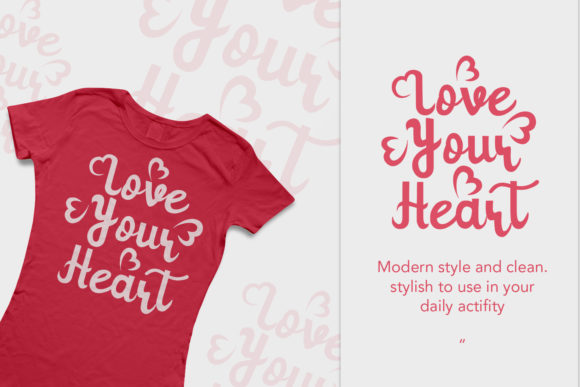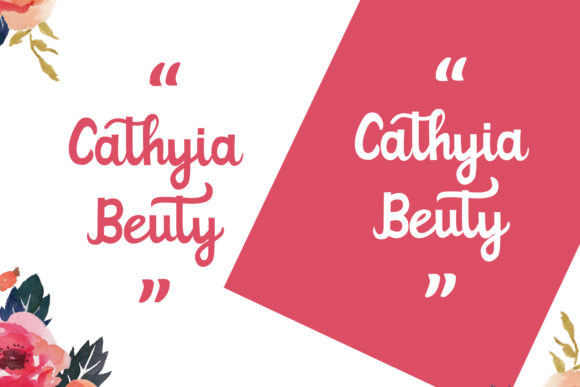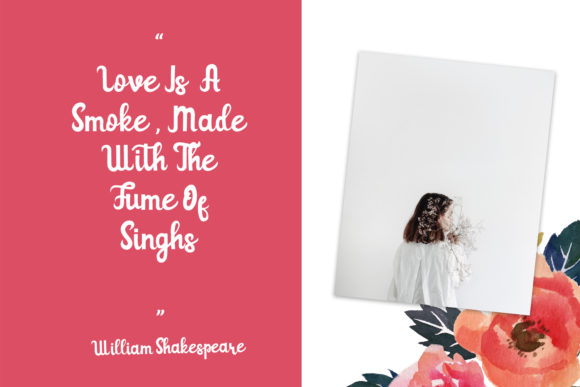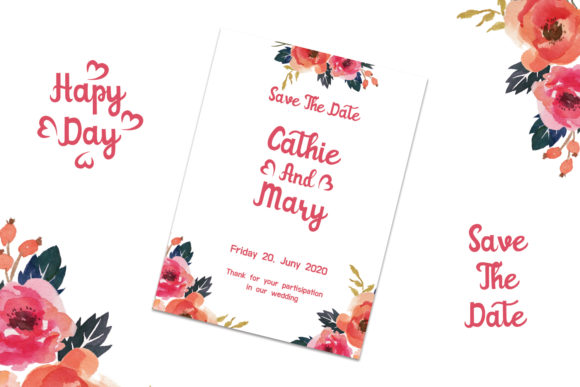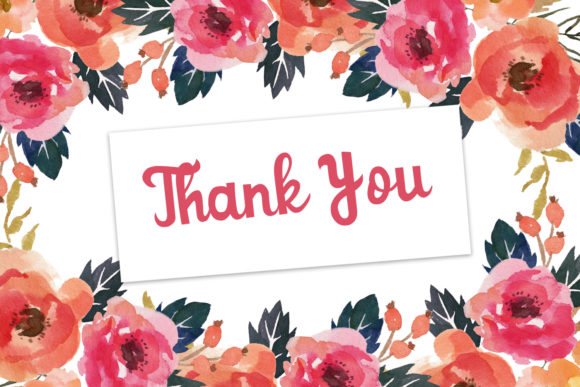
Angelina Font
About Angelina Font
Angelina is a modern and clean handwritten font, carefully handcrafted to become a true favorite. This font is the perfect fit for all of your logos, branding, social media, and crafty DIY projects.